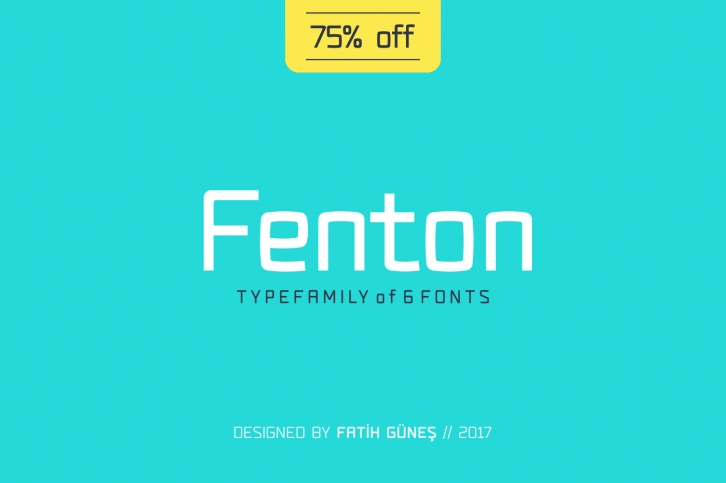
Fenton Typeface Family [75% OFF] is a beautiful font that was designed by Fatih Gunes. It's a great choice for designers and creatives who need such a font. It was released on May 17, 2017 and the file size is 5.22 MB. Fenton Typeface Family [75% OFF] may give a more youthful, expressive and casual look to your project. It is a very beautiful, refined, elegant, and high-quality font.